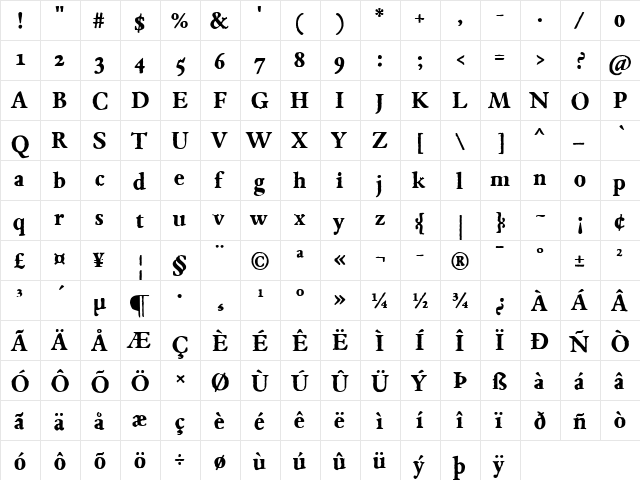
JMH Espinosa Bold
Design Context for JMH Espinosa Typeface
JMH Espinosa offers clean, dependable letterforms without strong stylistic allegiance, making it a practical choice for designers who need flexibility. The heavy weight commands attention and anchors typographic hierarchies.